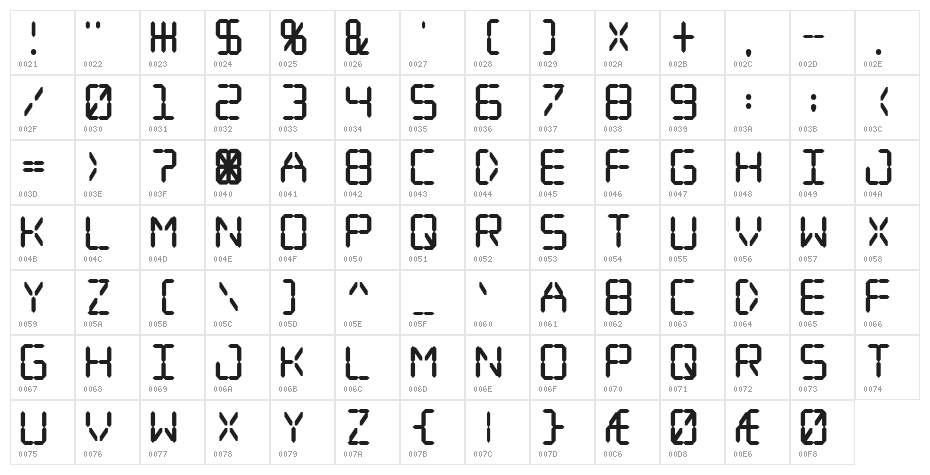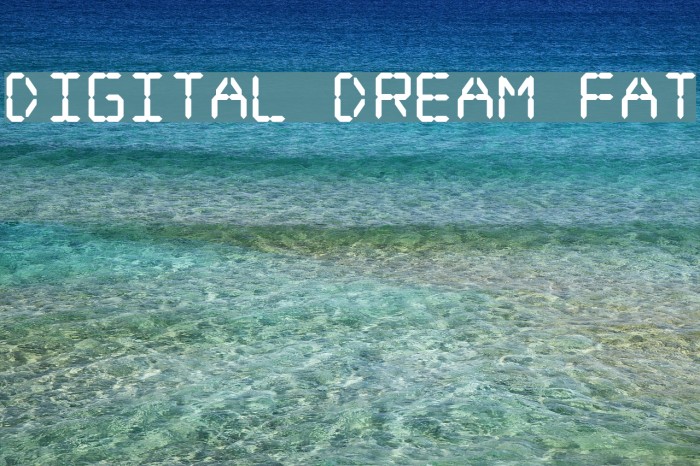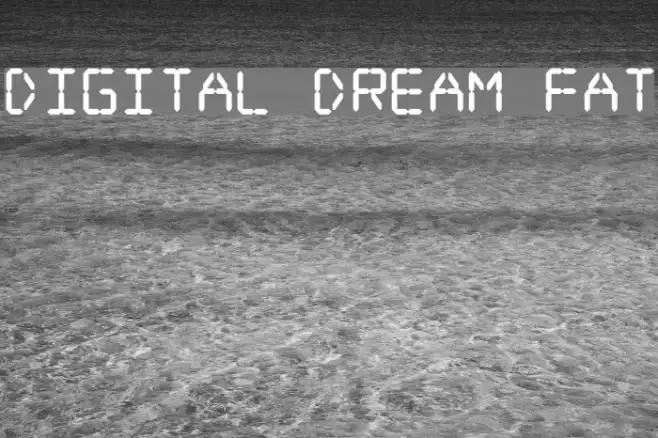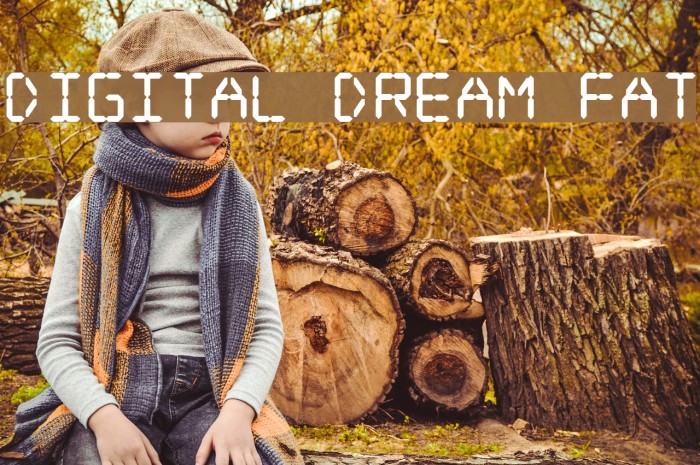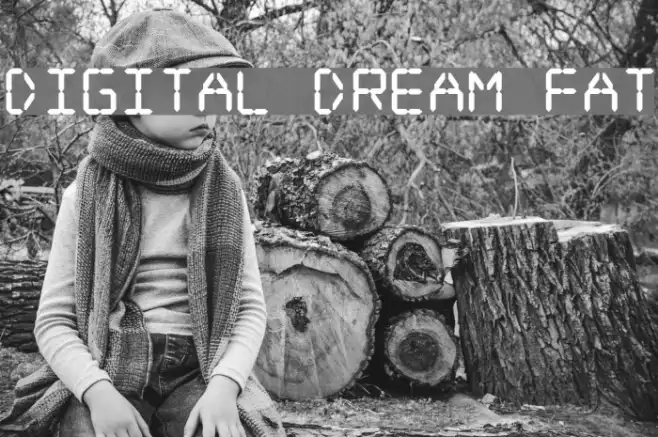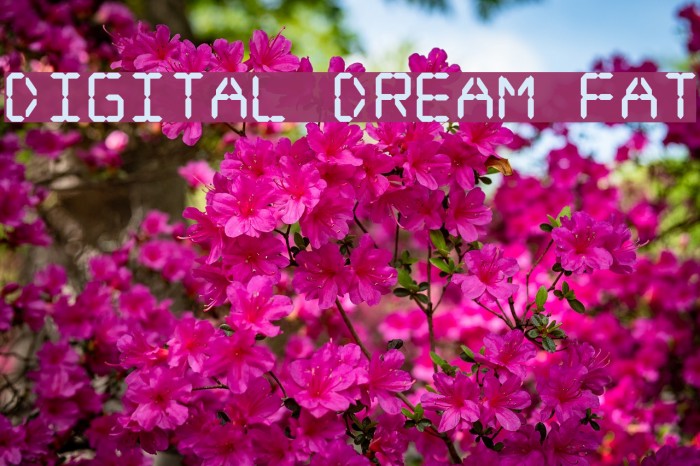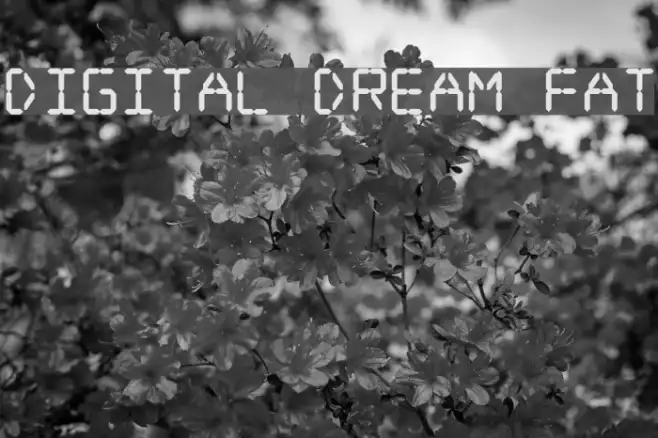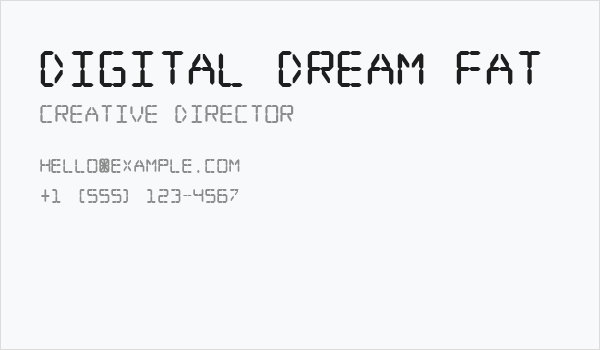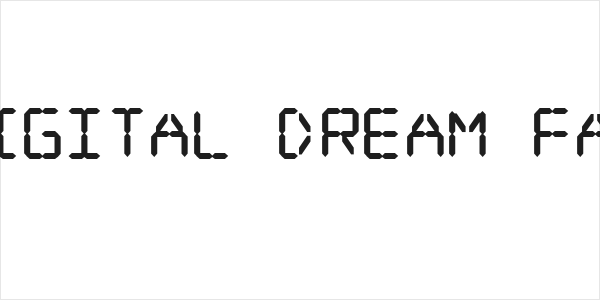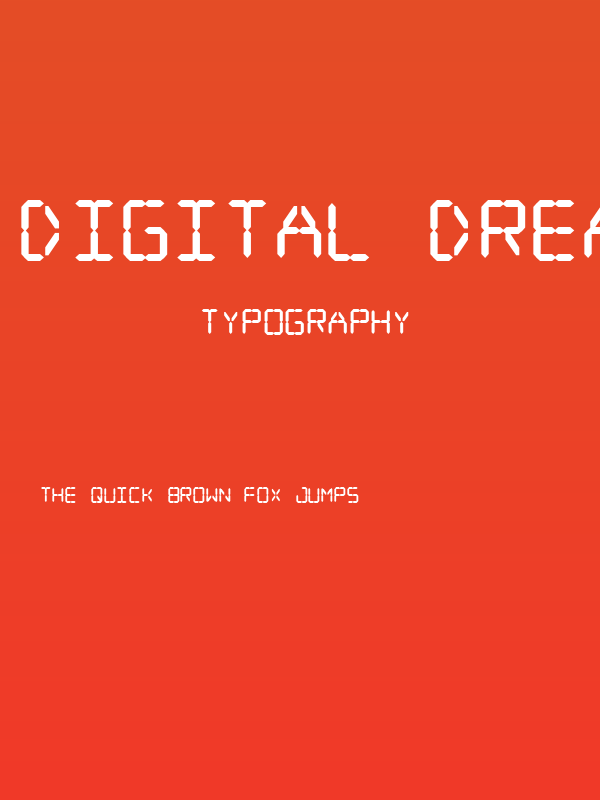
Digital dream Fat Font
Digital dream Fat Description
This font features a bold, geometric design reminiscent of digital displays. Each character is constructed with a series of straight lines and angles, creating a futuristic and technical appearance. The uppercase and lowercase letters maintain a consistent style, with the lowercase slightly smaller but equally bold. Numbers and special characters follow the same design principles, ensuring uniformity across all glyphs. The font's distinct, blocky style makes it highly legible and eye-catching, suitable for digital-themed projects. Its unique appearance is both modern and retro, evoking the look of early digital technology.
| Proposed Projects | Ideal for digital interfaces, tech branding, video game design, and sci-fi themed projects. |